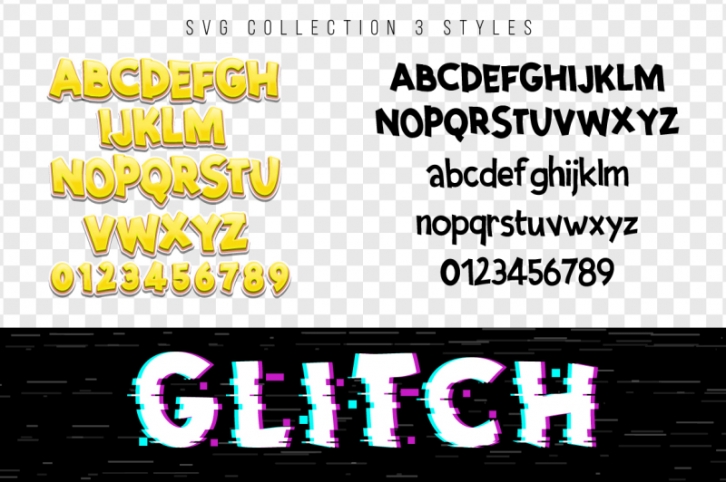
Introducing the brand new set of ultra-textured SVG Fonts.
The set includes 2 svg and 1 regular.
New to SVG fonts is support for Opentype Ligatures and Alternate letters.
"Orange Summer" is perfectly suited to signature, stationery, logo, typography quotes, magazine or book cover, website header, flyer, clothing, branding, packaging design and more.